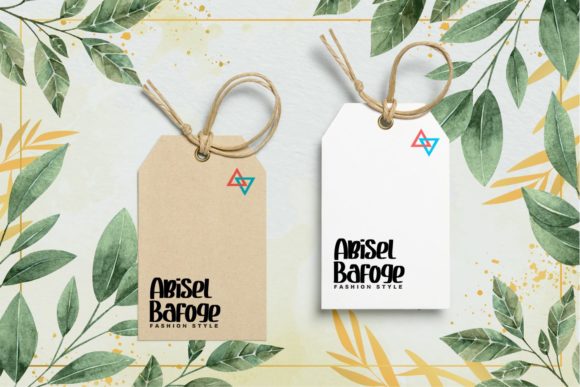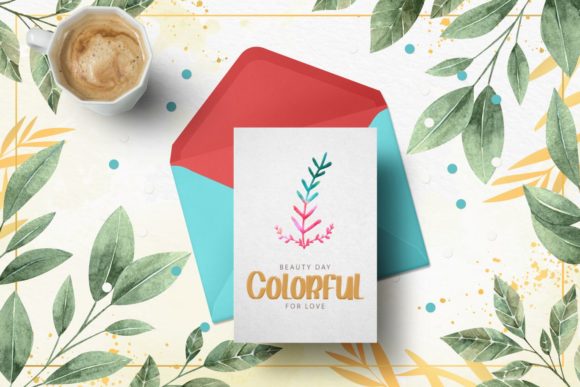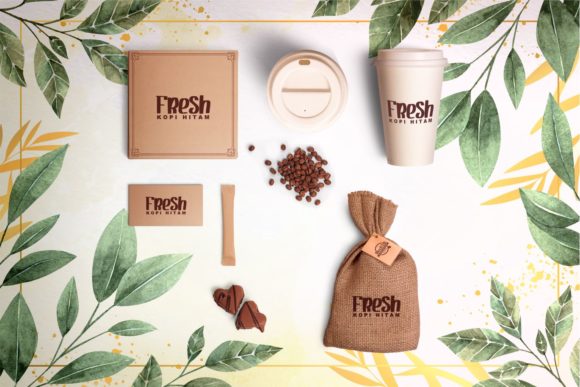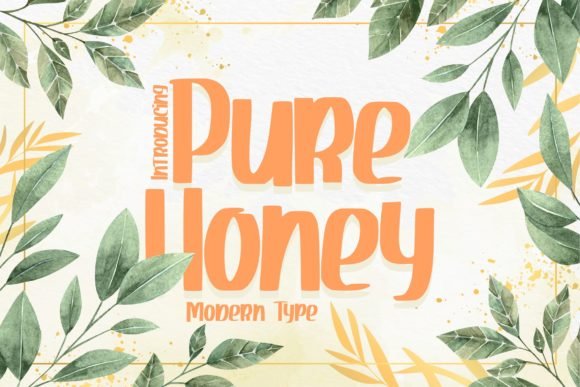
Introduction to Pure Honey Font
Pure Honey is a cute and quirky display font.
Its friendly feel makes this font incredibly versatile, fitting a wide range of contexts Add it to your creative ideas and notice how it makes them stand out.
Key Features of Pure Honey Font
Why Choose Pure Honey Font?